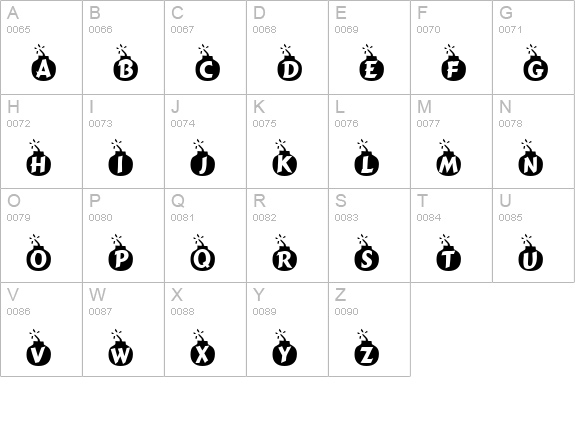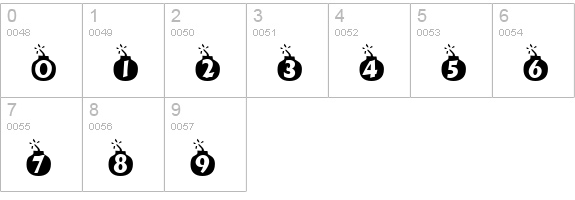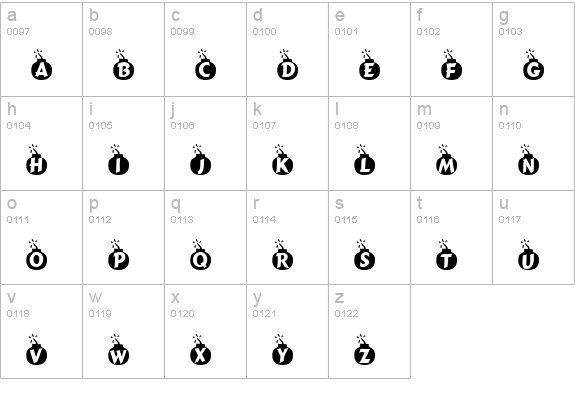
Explosif Font Details
Explosif font is a dynamic and bold typeface that exudes energy and modernity. With its sharp angles and explosive design elements, this font is perfect for making a statement in headers, logos, and other display projects. The striking visuals of Explosif font make it stand out from the crowd and grab attention. Best of all, Explosif font is available for free download at FontsMarket.com. This means you can easily access this eye-catching font and incorporate it into your designs without any cost. Don't miss out on the opportunity to add Explosif font to your collection and bring a powerful touch to your creative projects.